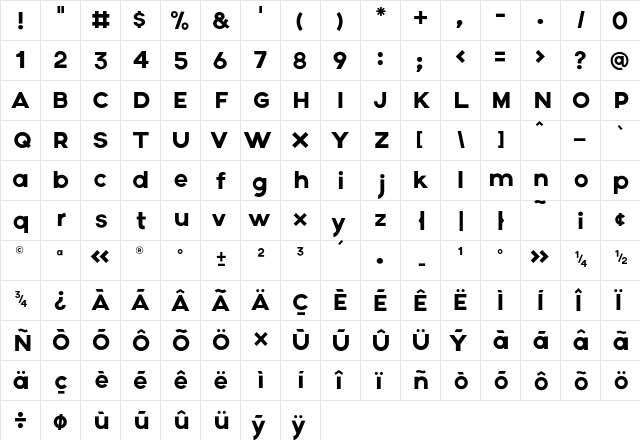
Axis Bold
| Designer | Jean M. Wojciechowski |
Design Context for Axis Typeface
Axis takes a measured approach to typography — its balanced proportions and neutral character make it a reliable workhorse for both digital and print work. Its bold stroke weight gives it real presence on the page.